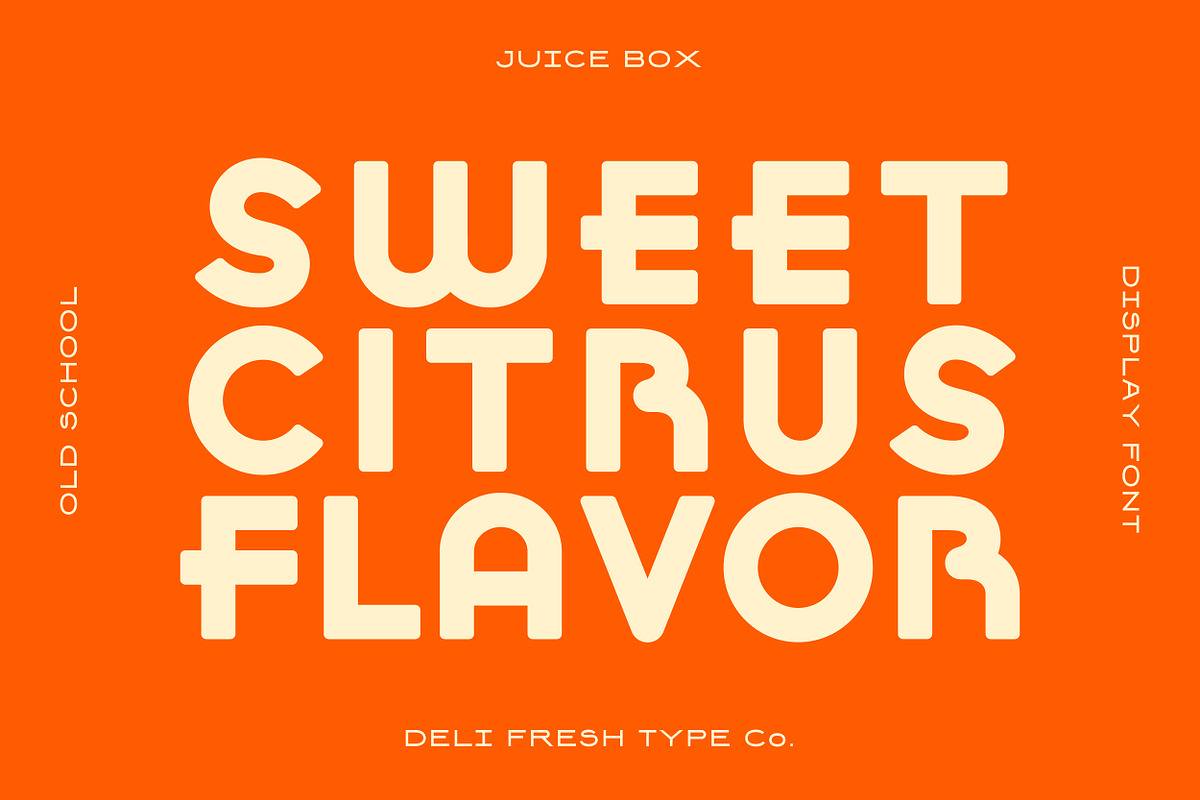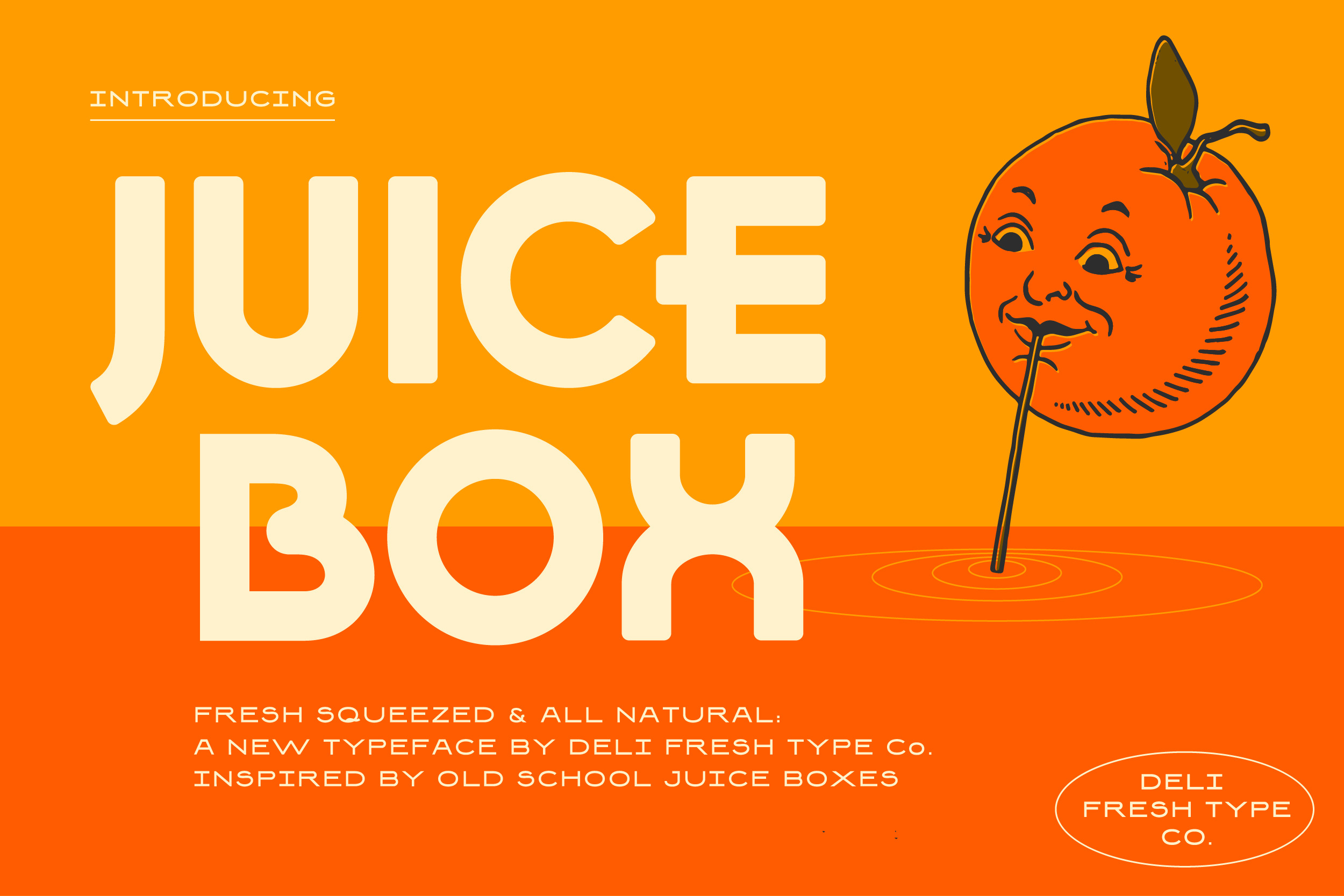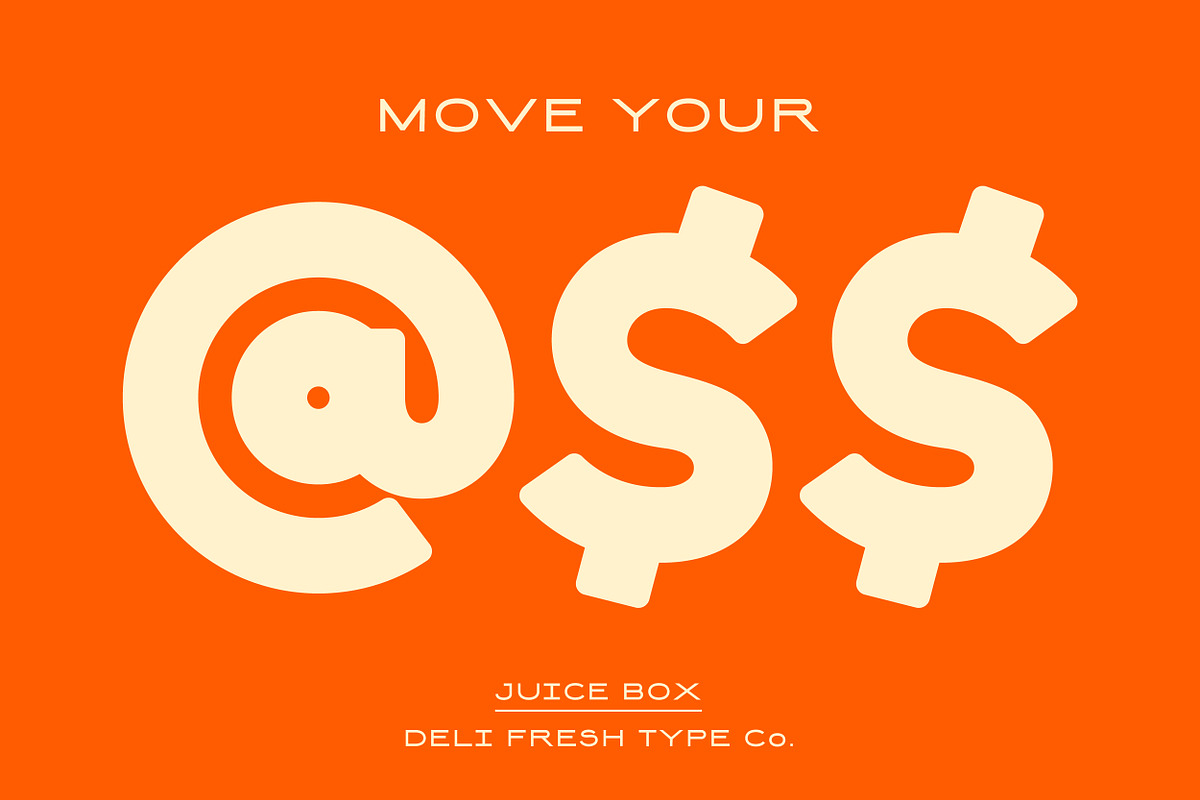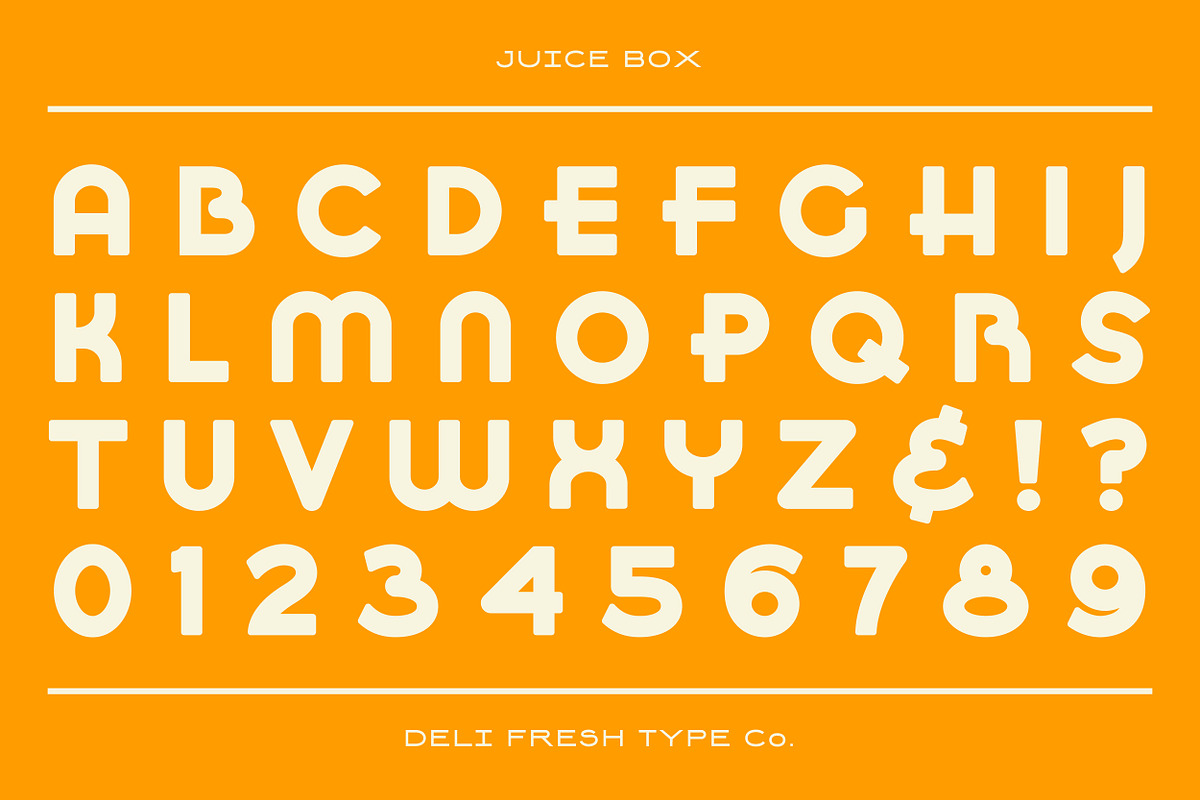
Juice Box: A Retro Display Font
A retro display typeface inspired by old school juice boxes.
This hefty font comes with capitals, numerals, and a smattering of special characters.